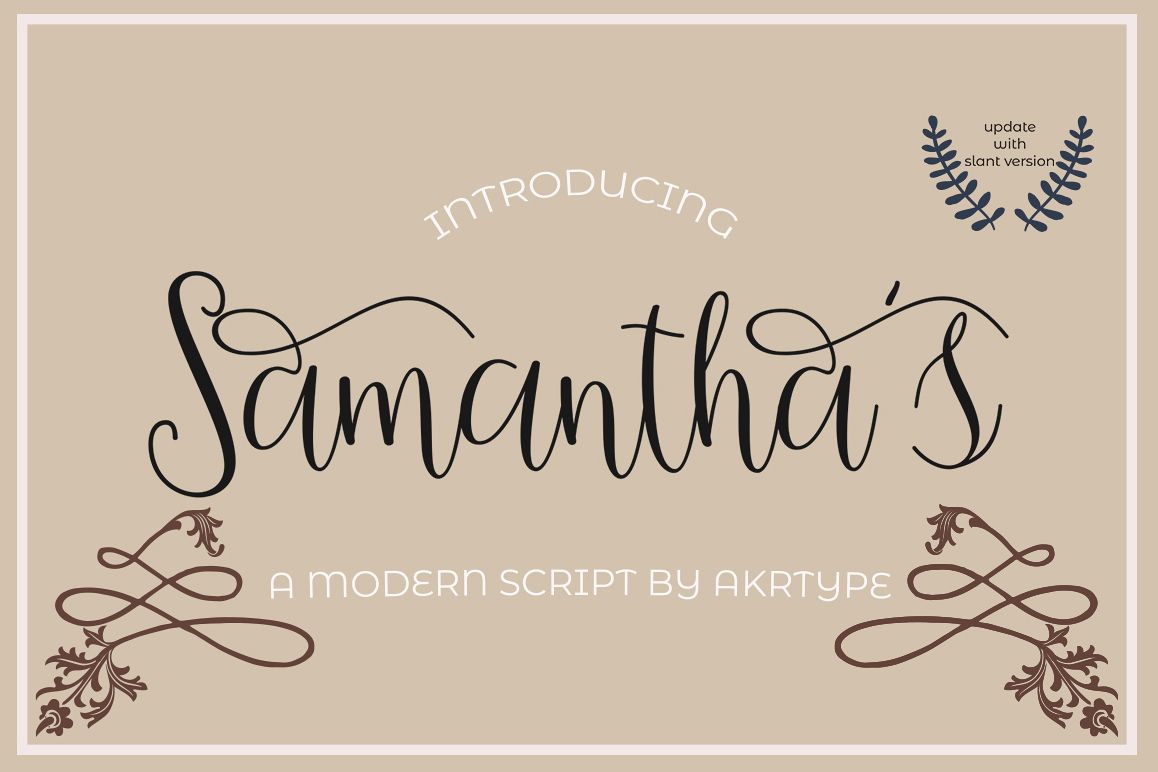
samantha script
So I made samantha's Script, sort of classic decorative with a modern twist. It is a display font meant for vintage logos, fashion labels, custom cards headers, badges, food packaging designs, as there are a lot of fancy letter connections. Also I offer a decent amount of stylistic alternatives for many letters.